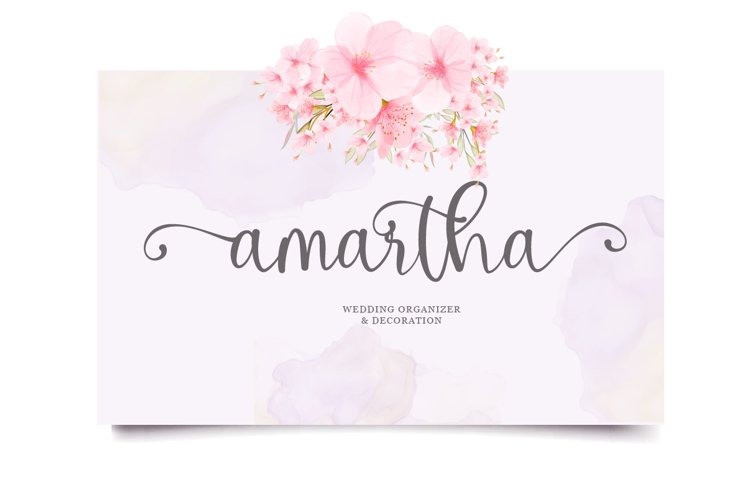
Hello Hamna Script Font
Hello Hamna is a sweet, soft hand-lettered handwritten font. Fall in love with its authentic feel and use it to create gorgeous wedding invitations, beautiful stationary art, eye-catching social media posts, and cute greeting cards.
Hello Hamna font consists of 1 alternative style for uppercese and 6 alternative styles for lowercase, you can combine alternate lowercase to make a cool and beautiful design.